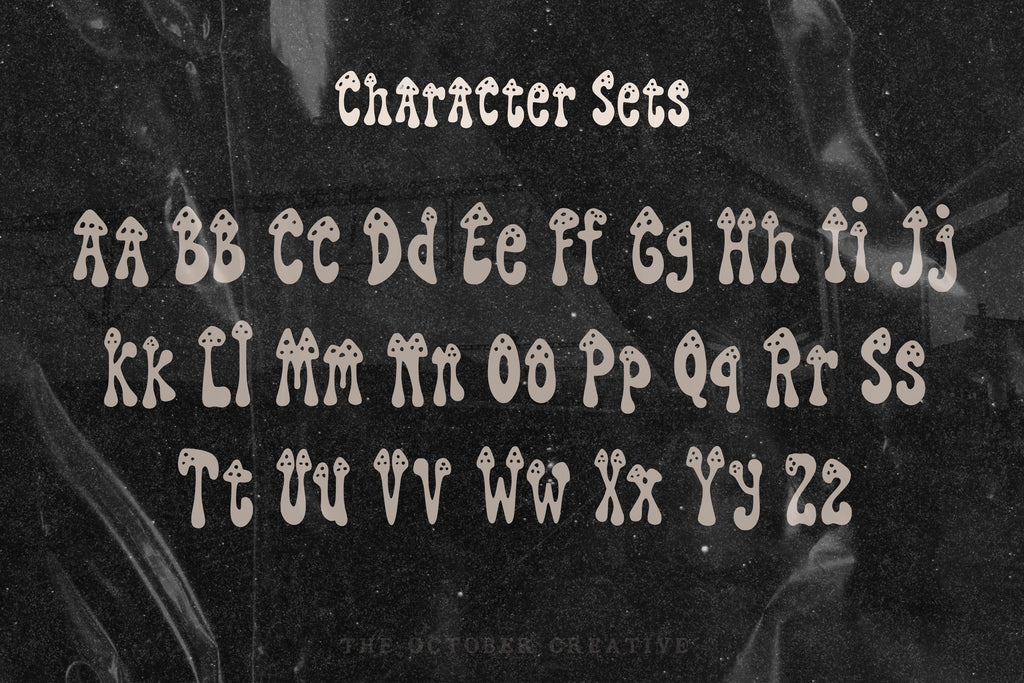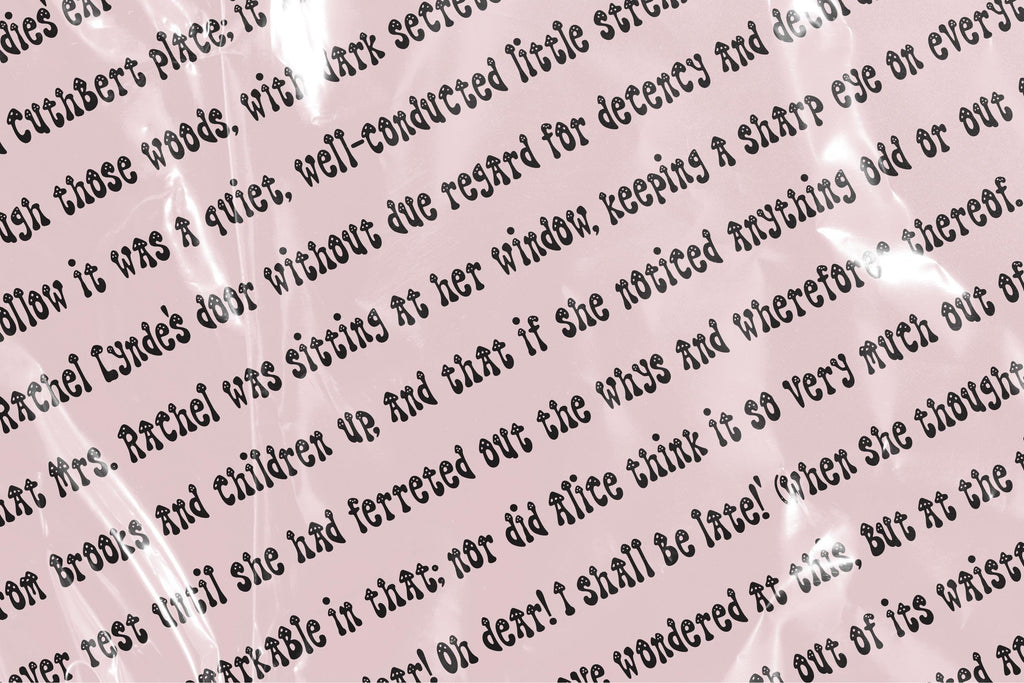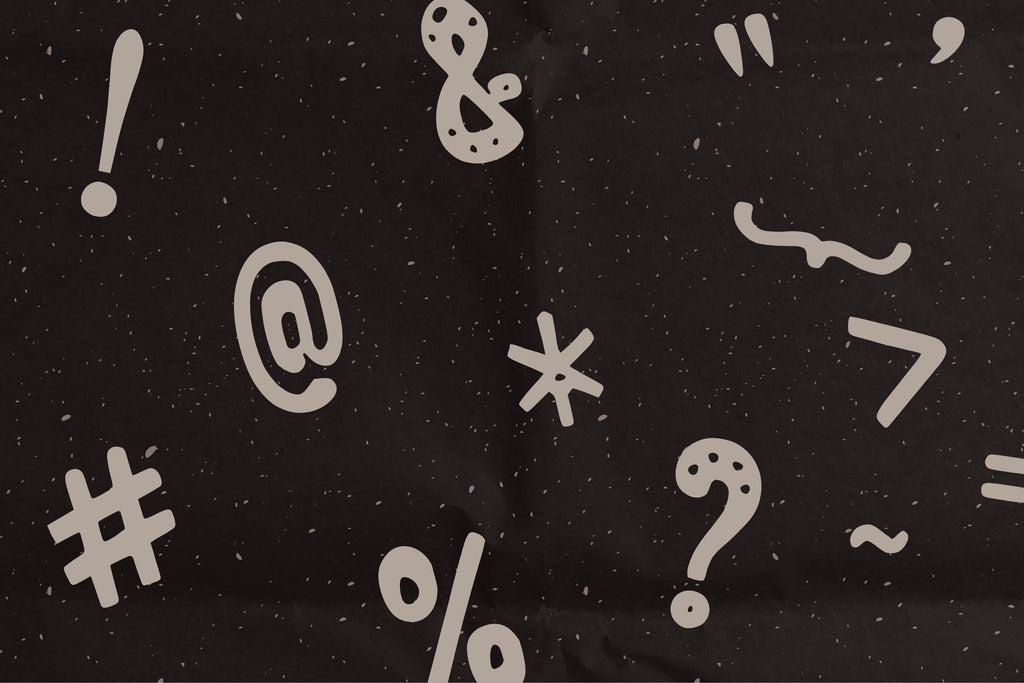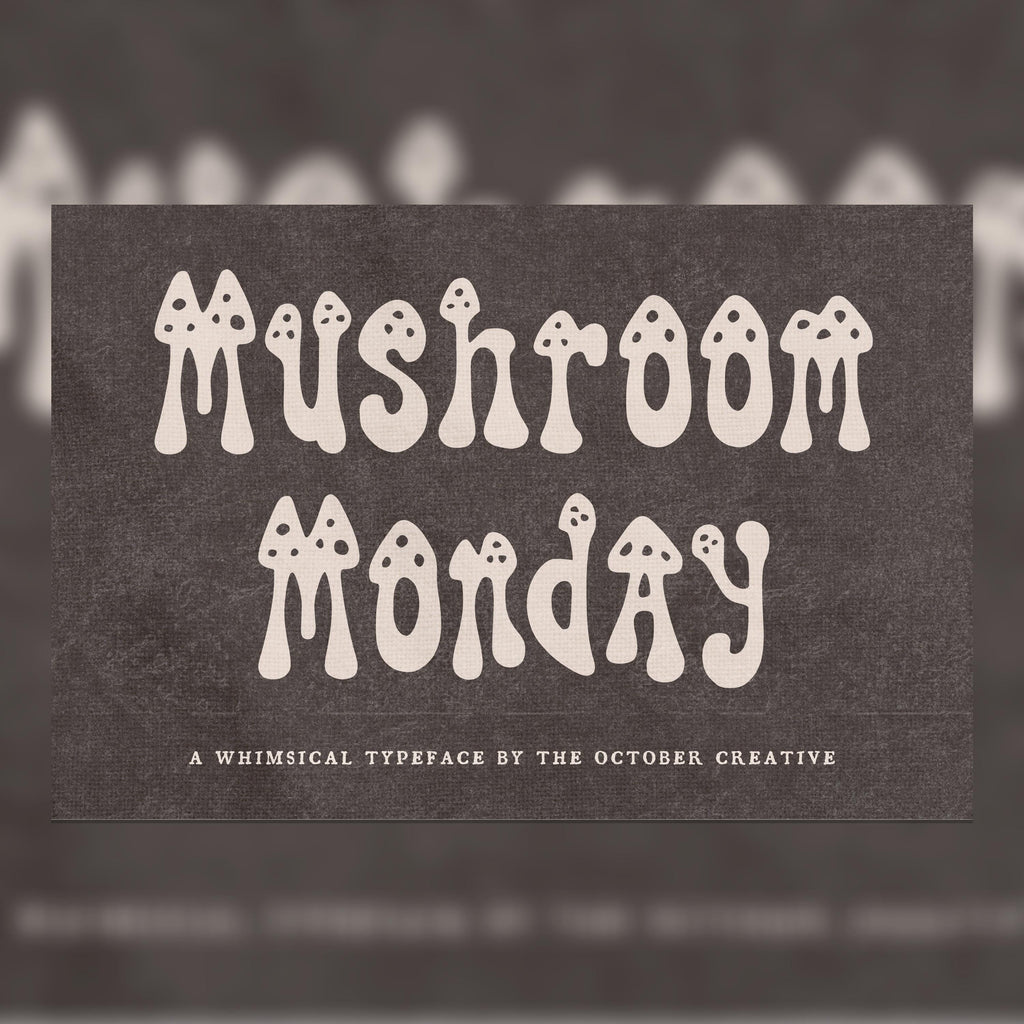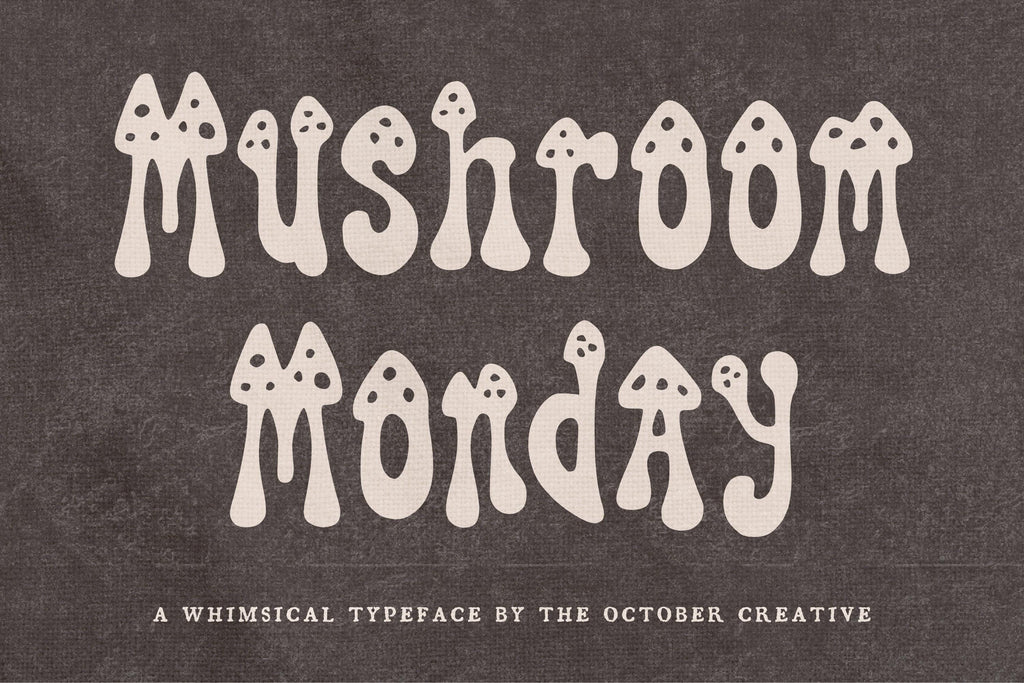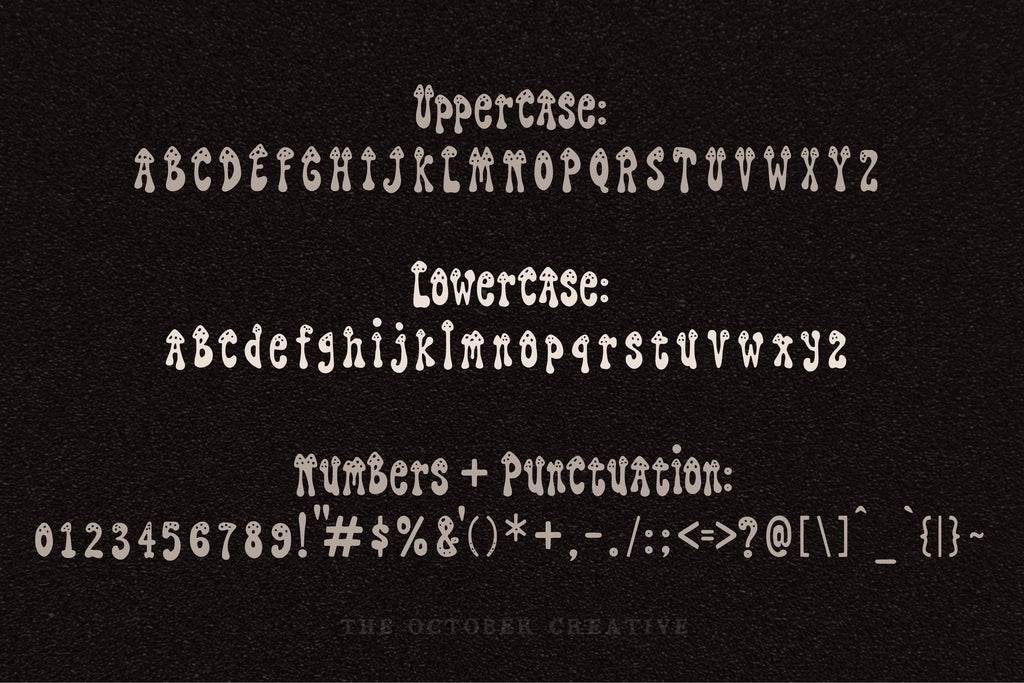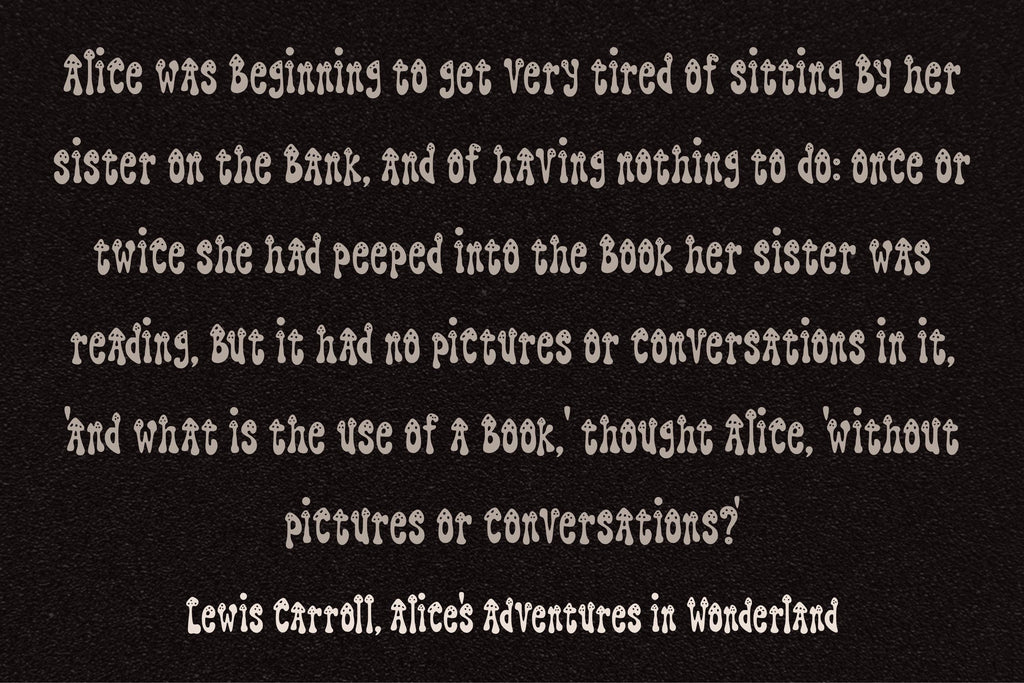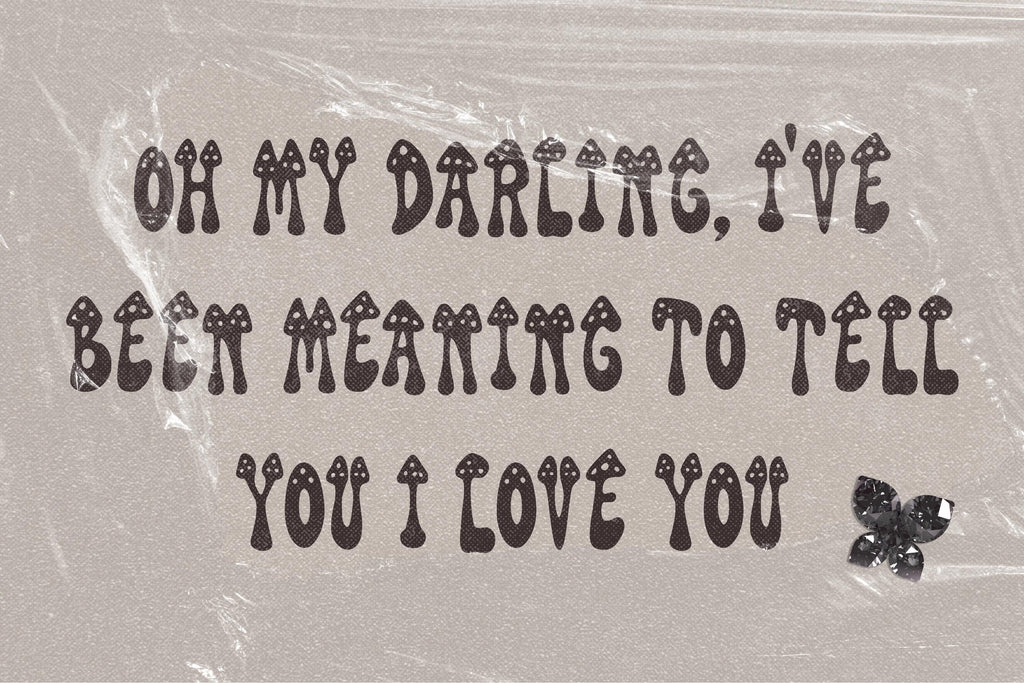
Mushroom Monday Font
Mushroom Monday has little spotted toadstools growing right out of its chunky letters. Put it on woodland stickers, garden party invitations, and cheerful prints for anyone who stops a walk to admire a mushroom.